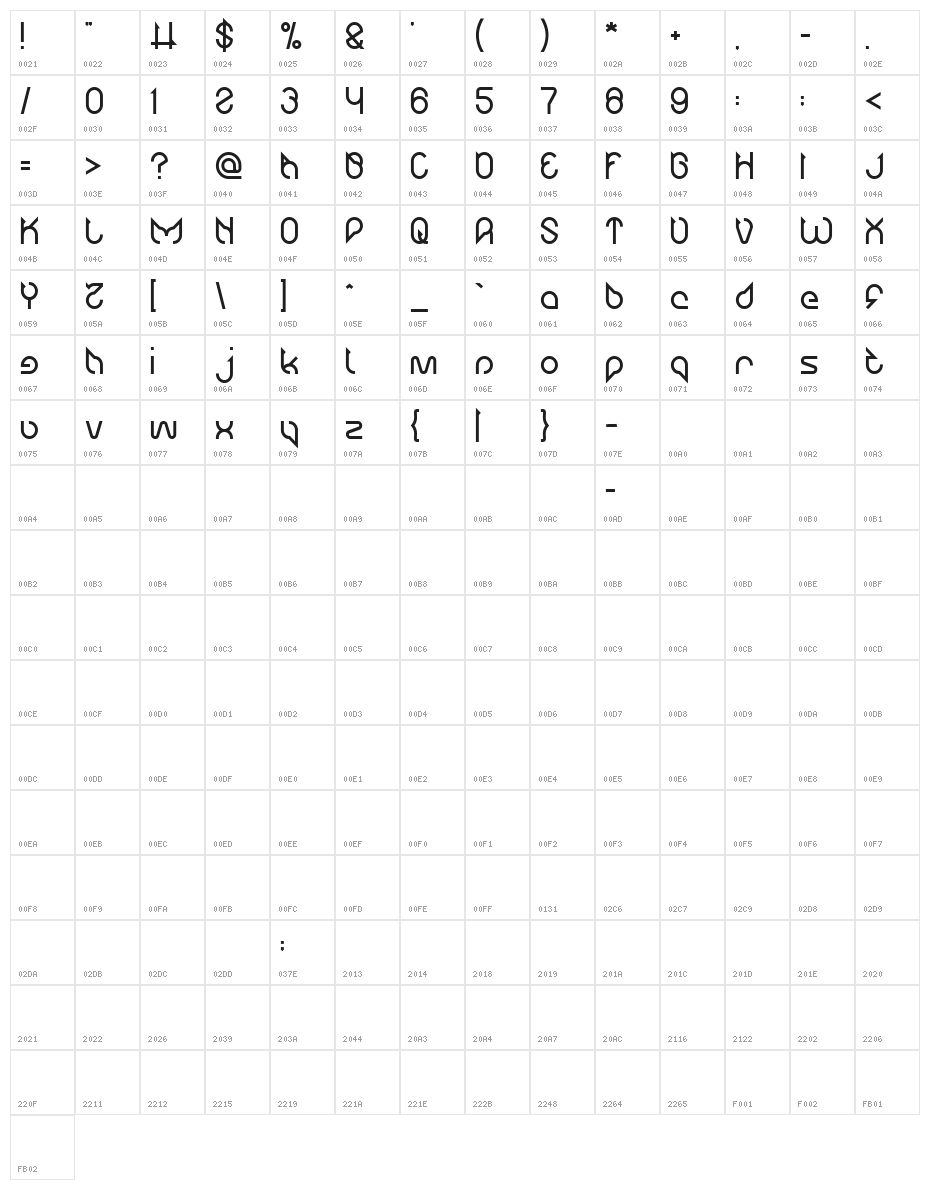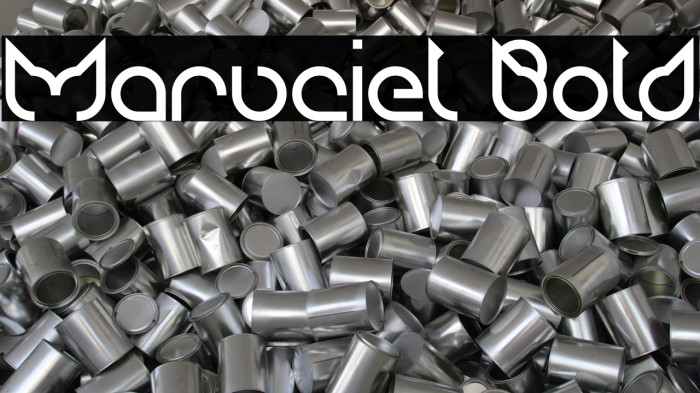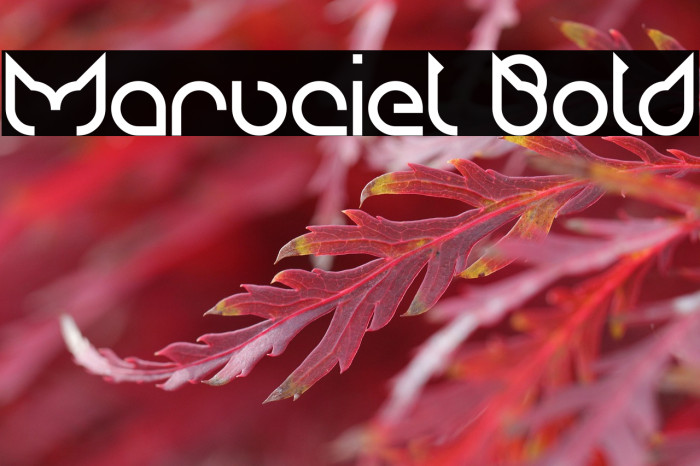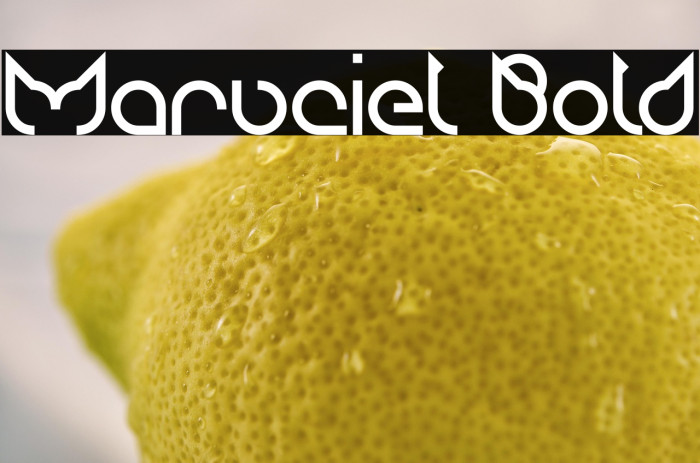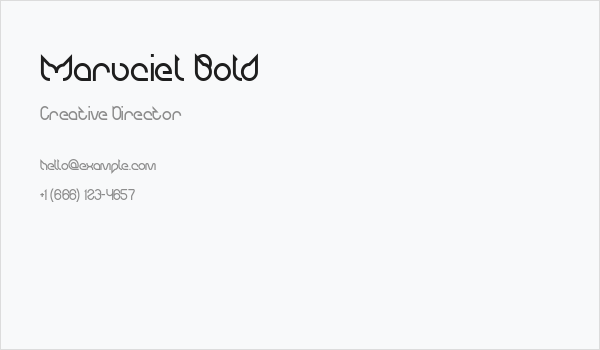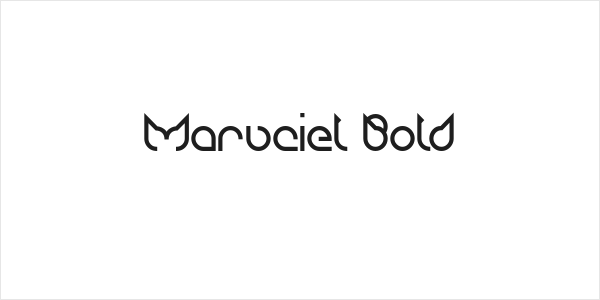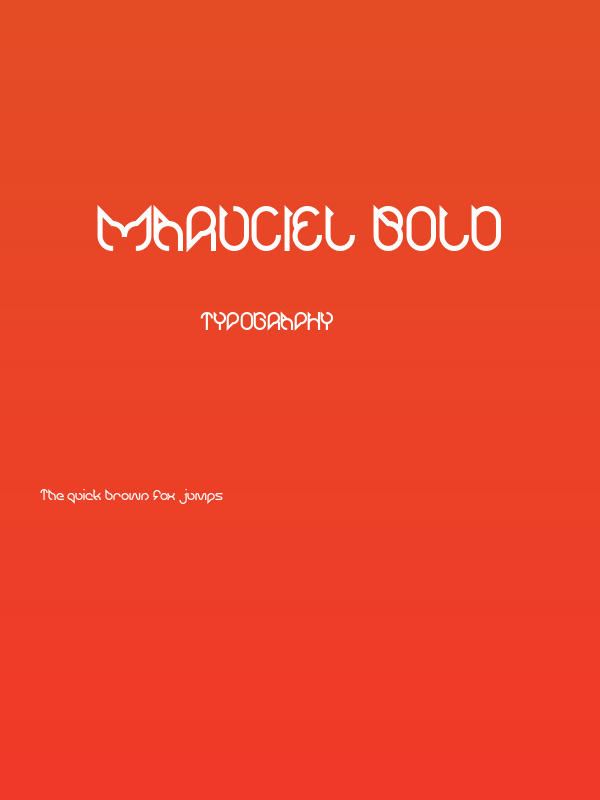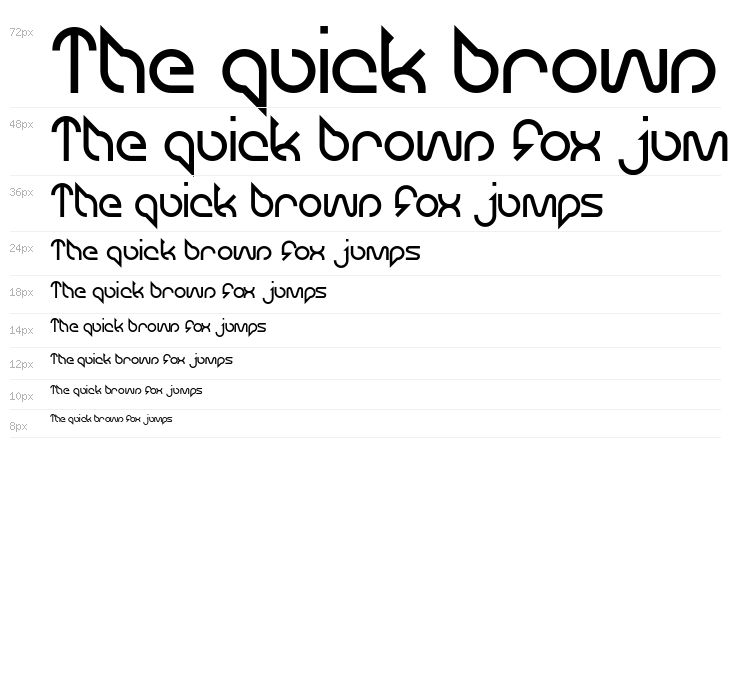
Maruciel Bold Font
Maruciel Bold Description
This font features a bold and geometric design with a futuristic flair. The characters are crafted with sharp angles and unique cutouts, giving it a distinctive and modern appearance. The uppercase letters are particularly striking, with angular lines and unexpected curves that create a sense of movement and dynamism. The lowercase letters maintain this theme, offering a cohesive look across the typeface. Numbers and special characters are equally bold, ensuring consistency throughout. This font's strong visual impact makes it ideal for attention-grabbing designs.